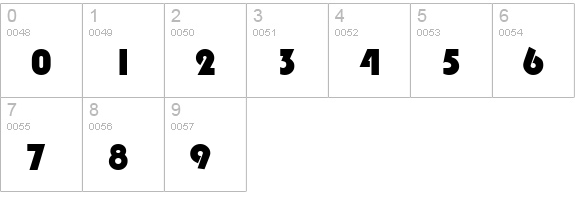
Vanadin Font Details
Vanadin font is a modern and elegant typeface that exudes sophistication and style. Its clean lines and sleek design make it perfect for a wide range of design projects, from branding to editorial layouts. The versatility of Vanadin font allows it to be used in both digital and print applications, making it a valuable addition to any designer's toolkit. What sets Vanadin font apart is not only its timeless appeal, but also the fact that it is available for free download at FontsMarket.com. This means that you can access this high-quality font without any cost, allowing you to elevate your designs without breaking the bank. Whether you are a seasoned designer looking for a fresh font to add to your collection or a newcomer searching for the perfect typeface to make your projects stand out, Vanadin font is a fantastic choice that won't disappoint. Download it today and see the difference it can make in your designs!